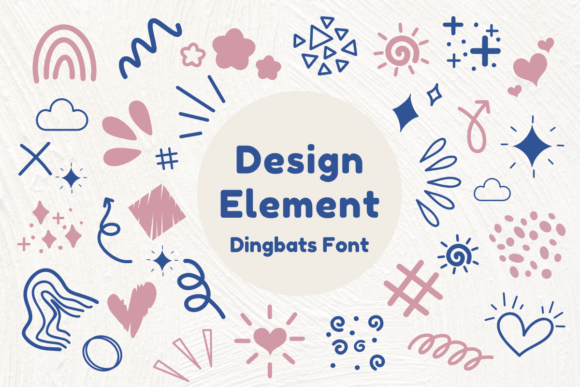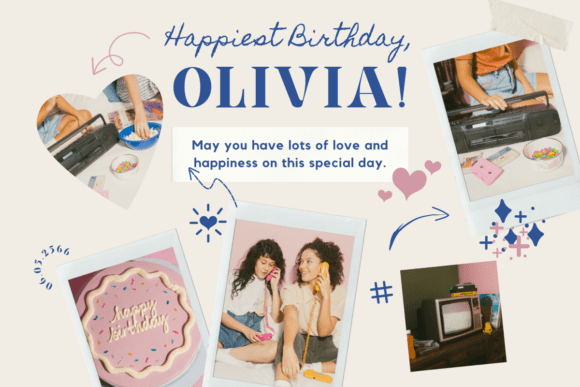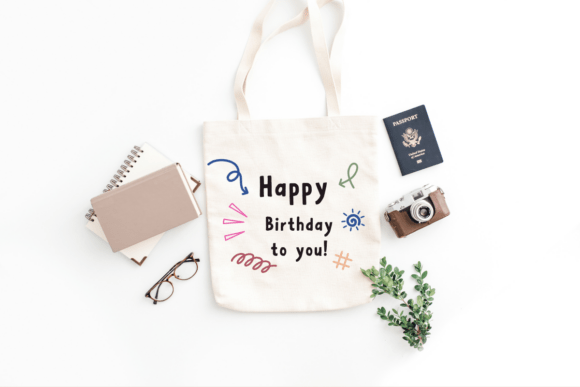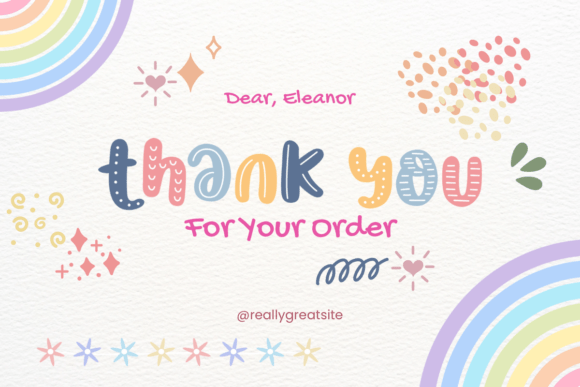
Design Element Font
About the Design Element Font
Step up your design game with Design Element Font, a font that exudes confidence and style. Design Element is a dingbats font with an abstract theme. This font can enhance your creative projects such as wedding invitations, DIY, crafts, decorations, logos, and many other creative ideas.
Design Element’s abstract nature makes it ideal for projects requiring visual interest and a touch of modern flair. It excels in logo design, short headlines, and decorative elements within larger layouts, particularly for brands targeting a creative or artistic audience. Avoid using it for body text or lengthy passages; its intricacy can hinder readability.
Consider pairing Design Element with a clean sans-serif like Open Sans for strong contrast and readability, or a more geometric sans-serif such as Futura for a modern, sophisticated feel. For a softer contrast, a slightly rounded serif font such as Merriweather could create a balanced aesthetic.
The overall personality of Design Element is sophisticated and subtly playful. It’s best suited for projects that emphasize visual communication over large amounts of text, such as branding for art studios, boutiques, or design firms.
Design Element Font Usage Examples
Design Element Font Example